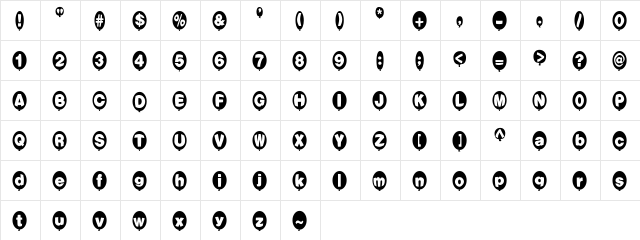
80 Regular
Design Context for 80 Typeface
80 is a composed and adaptable typeface that performs quietly and consistently across a wide range of design contexts.